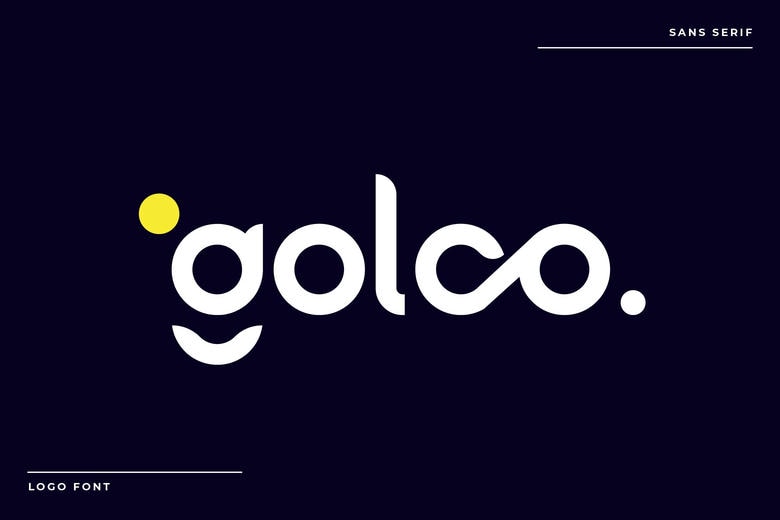
Golco Font
Golco is a clean sans serif font made for use with sharp, striking logo design and branding. With its modern and geometric shape, smooth tone, and modern style, Golco is ideal for branding, packaging, editorial titles, web interfaces and social media.
Golco Sans Serif Font